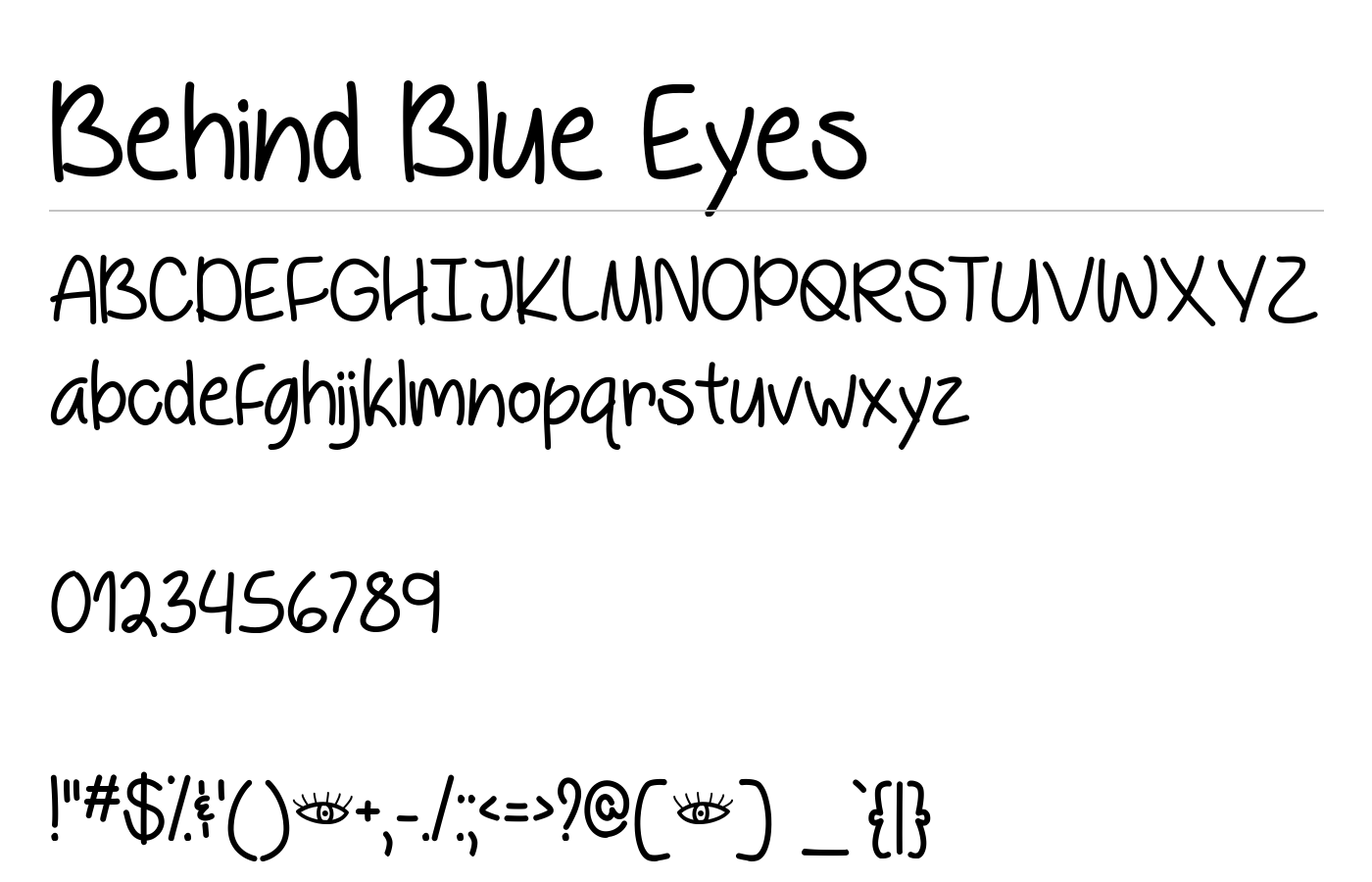
Behind Blue Eyes is a playful, casual handwritten font that feels friendly and approachable with its tall, slightly uneven letterforms and smooth, rounded strokes. Its light weight and open spacing make it ideal for informal designs such as children’s books, personal branding, or creative projects where a warm, human touch is desired. This font works best in headlines and short texts, conveying a relaxed, whimsical personality while remaining clear and easy to read.
Behind Blue Eyes Font
About Behind Blue Eyes Font